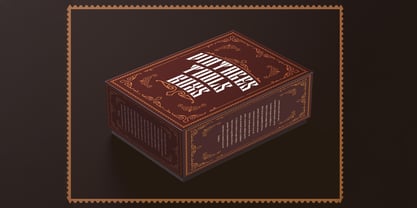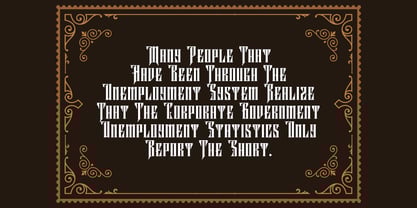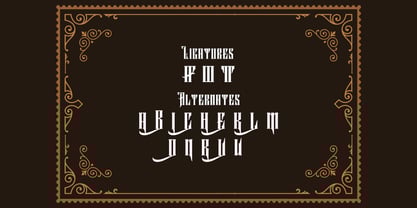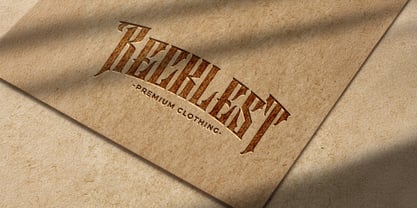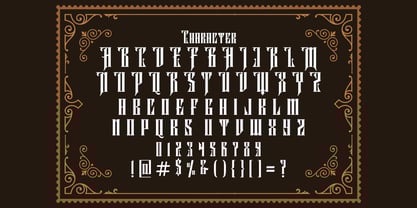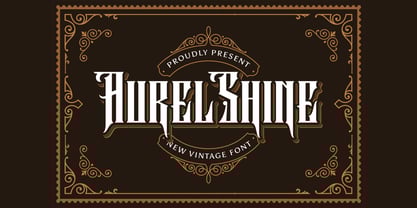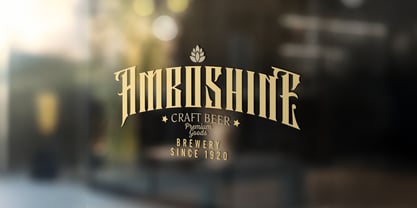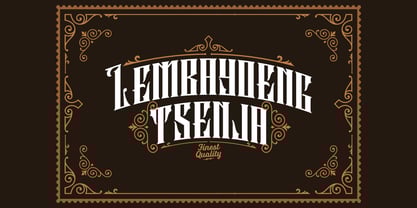
The Aurel shine Font Family was designed by Virgiawan Listanto and published by Stringlabs Creative Studio. Aurel shine contains 1 styles. More about this family
Aurel Shine is a refined blackletter font that merges old-world charm with modern sophistication. With its sharp serifs, ornate details, and graceful structure, Aurel Shine is perfect for creating bold and elegant designs that demand attention.